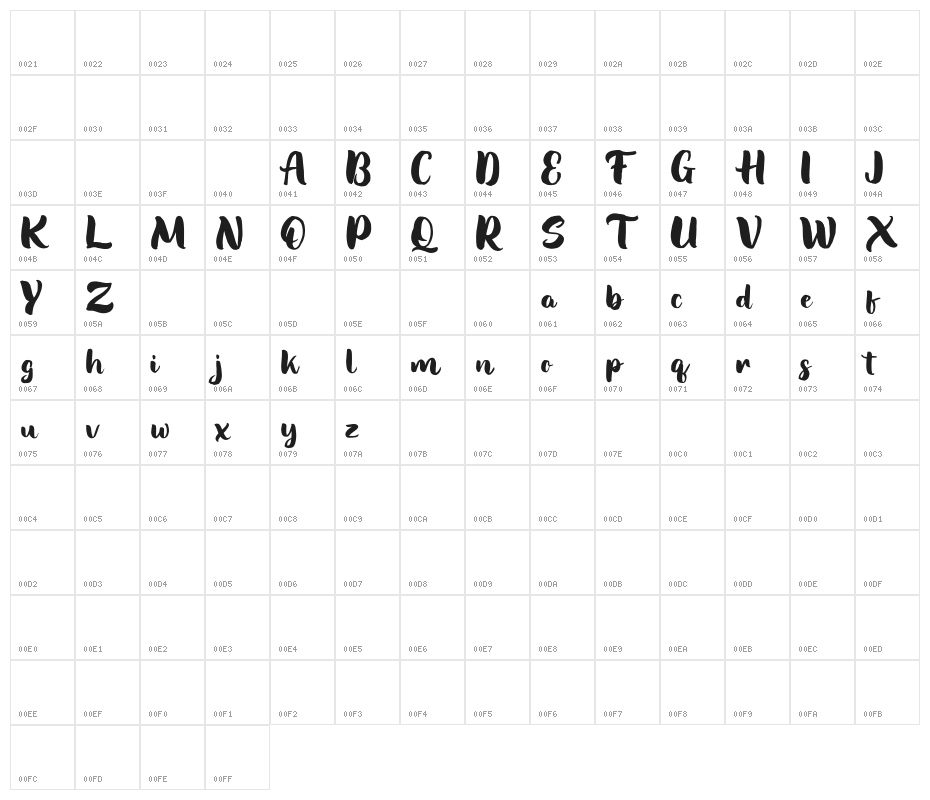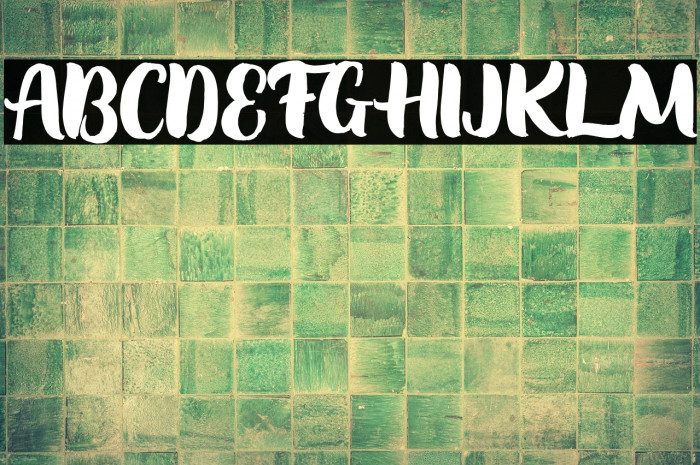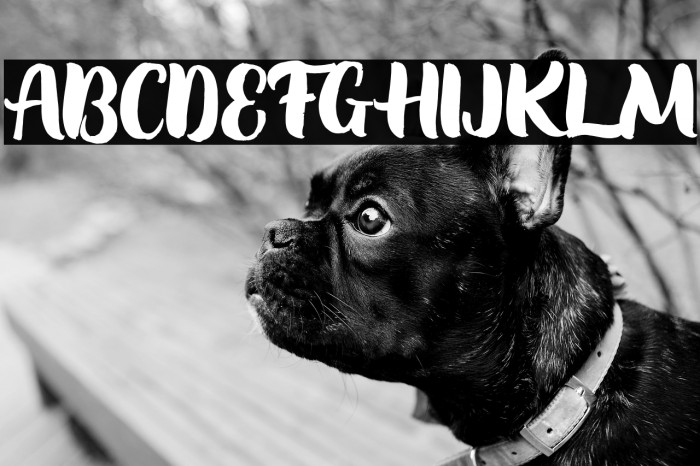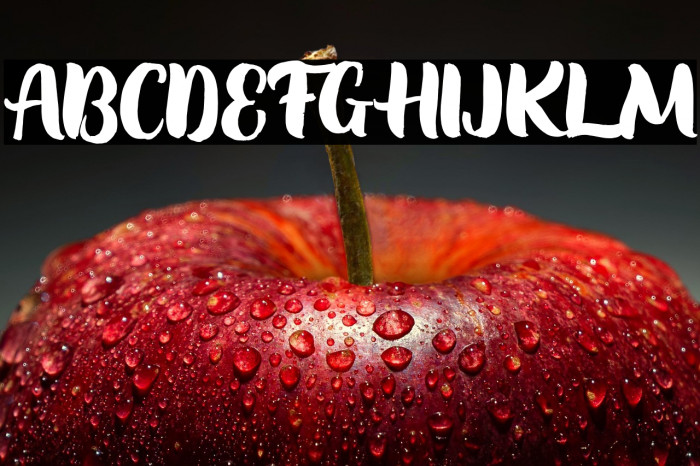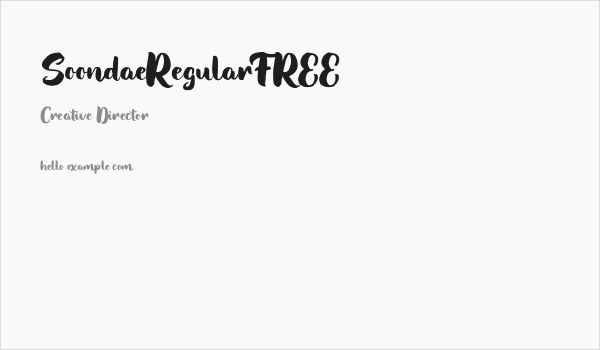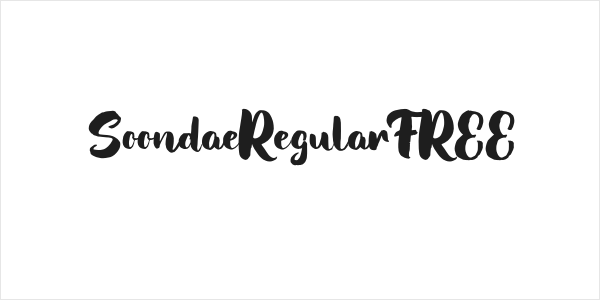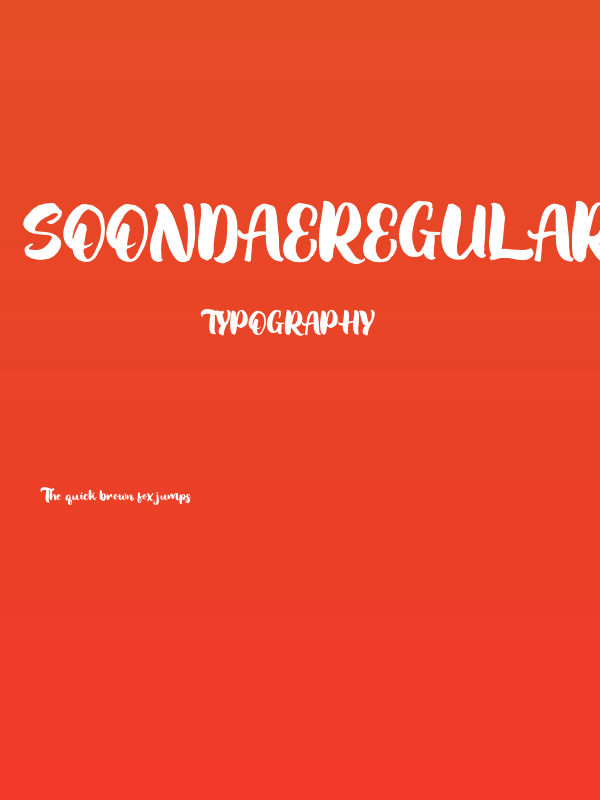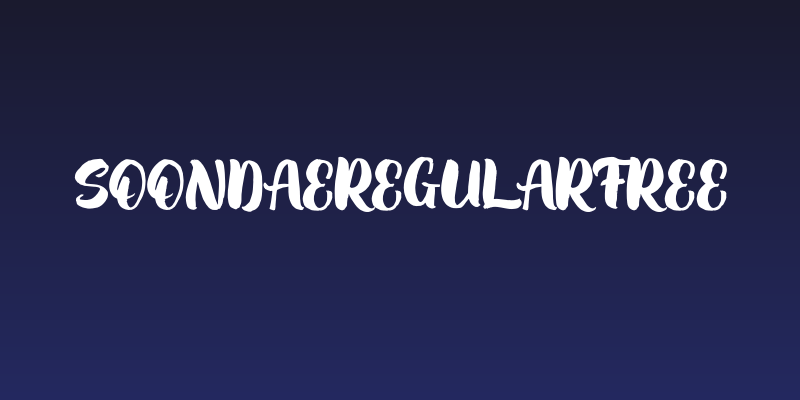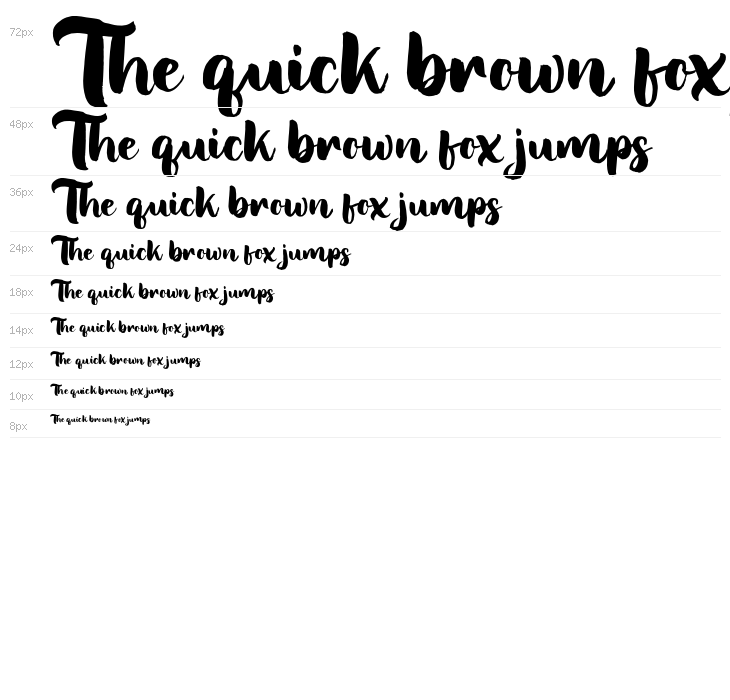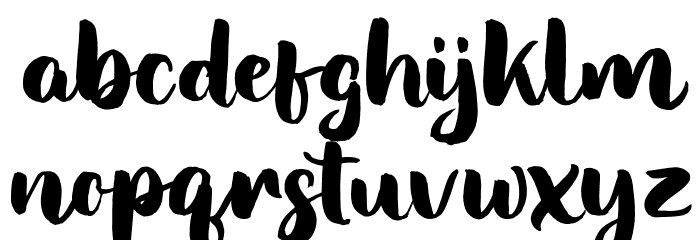
SoondaeRegularFREE Font
SoondaeRegularFREE Description
This font features a bold and expressive script style, characterized by its fluid and dynamic strokes. The letters are interconnected, creating a sense of movement and rhythm. The uppercase letters are particularly striking, with their dramatic curves and flourishes, while the lowercase letters maintain a consistent flow. The overall appearance is both artistic and playful, making it suitable for creative projects. The font's thick strokes and high contrast between thick and thin lines add to its visual impact, ensuring readability while maintaining an elegant aesthetic.